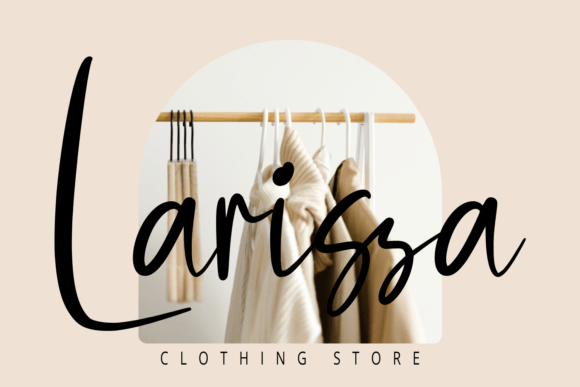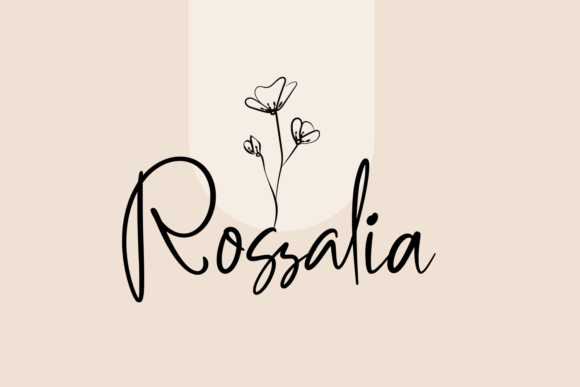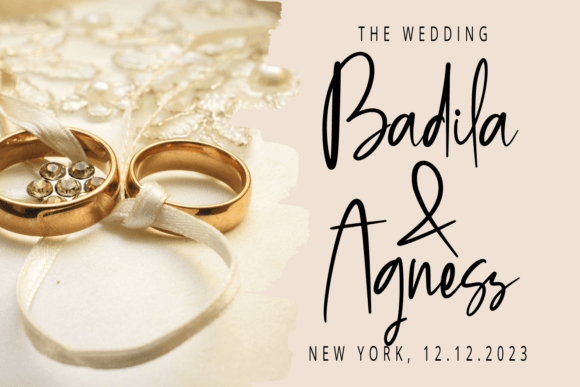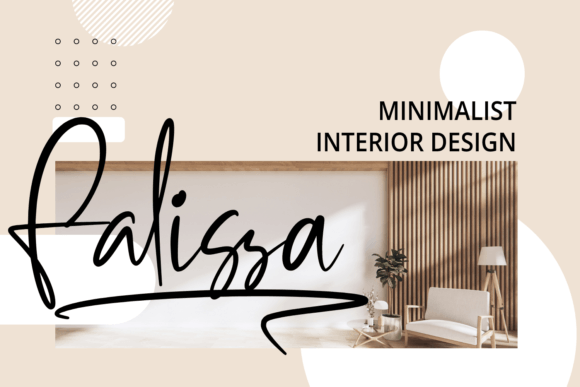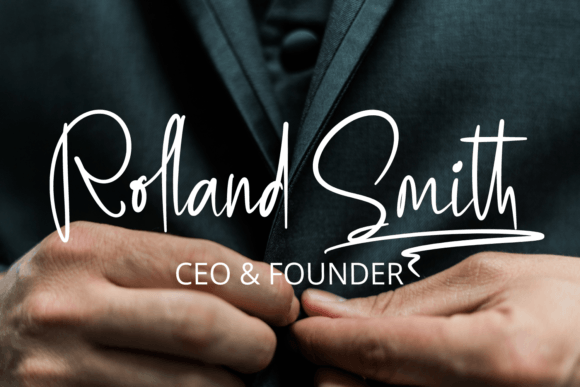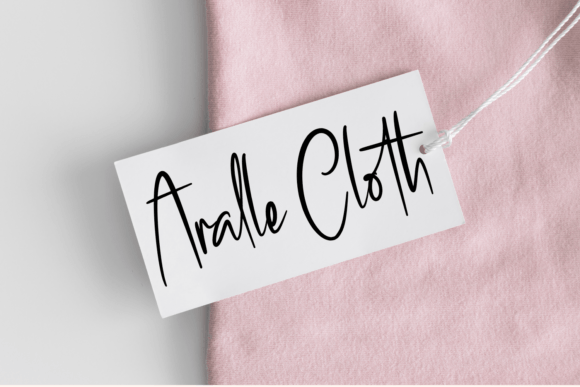
Introducing College Font: The Perfect Handwritten Touch for Your Designs
Are you a designer or crafter looking for a font that exudes elegance and charm? Look no further than College Font! This beautiful handwritten font is perfect for adding a personal touch to your designs, and its versatility makes it suitable for a wide range of projects.
What Makes College Font So Special?
College Font is a stunning script font that feels equally charming and elegant. Its handwritten style gives it a unique and personal feel, making it perfect for designs that require a touch of warmth and sophistication. Whether you’re working on a wedding invitation, a thank you card, a quote, or a greeting card, College Font is sure to impress.
One of the best things about College Font is its versatility. It’s suitable for a wide range of design projects, including:
- Wedding invitations: Add a touch of elegance and romance to your wedding invitations with College Font.
- Thank you cards: Express your gratitude in style with this beautiful handwritten font.
- Quotes: Make your quotes stand out with College Font’s elegant and cursive script.
- Greeting cards: Add a personal touch to your greeting cards, whether it’s for a birthday, holiday, or special occasion.
- Logos: Create a unique and memorable logo for your business or brand with College Font.
- Business cards: Stand out from the crowd with a beautifully designed business card featuring College Font.
College Font is PUA encoded, which means you can access all of the amazing glyphs and ligatures with ease. This makes it easy to customize your designs and add unique touches that will make your work stand out. With PUA encoding, you can:
- Easily access alternative characters and ligatures
- Customize your designs with unique glyphs and swashes
- Create beautiful and intricate designs with ease
Why Designers and Crafters Love College Font
College Font has become a favorite among designers and crafters, and for good reason. Here are just a few reasons why:
- Unique and elegant handwritten style
- Versatile and suitable for a wide range of design projects
- High-quality and professional design
Tips for Using College Font in Your Designs
Here are a few tips for using College Font in your designs:
- Use it as a headline font to add a touch of elegance and sophistication
- Pair it with a sans-serif font for a beautiful contrast
- Use it to create a unique and memorable logo or brand identity
College Font is a beautiful and versatile handwritten font that’s perfect for designers and crafters. Its elegant and charming style makes it suitable for a wide range of design projects, from wedding invitations to logos and business cards. With its PUA encoding, you can easily access all of the amazing glyphs and ligatures, making it easy to customize your designs and add unique touches. Whether you’re a professional designer or a crafter, College Font is sure to become a favorite in your collection.